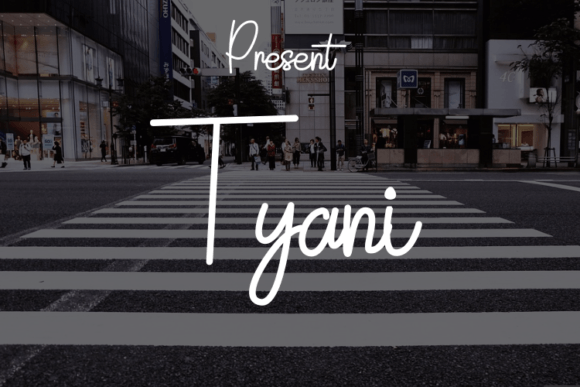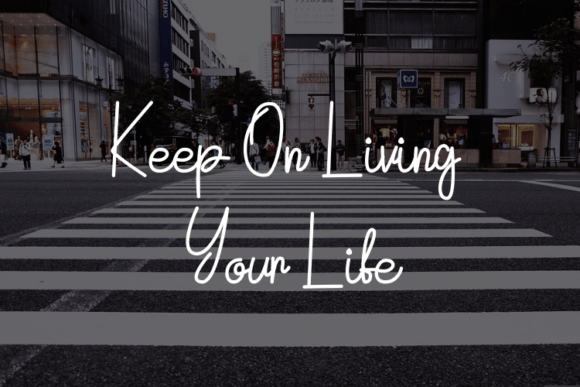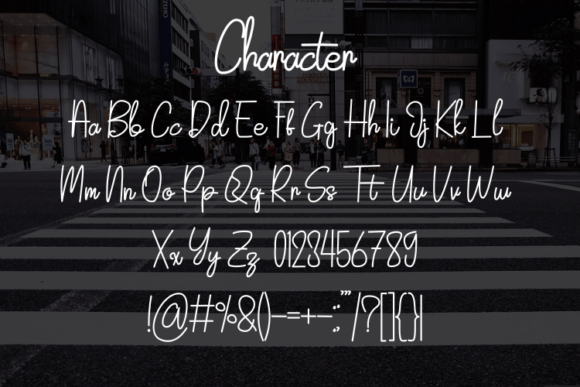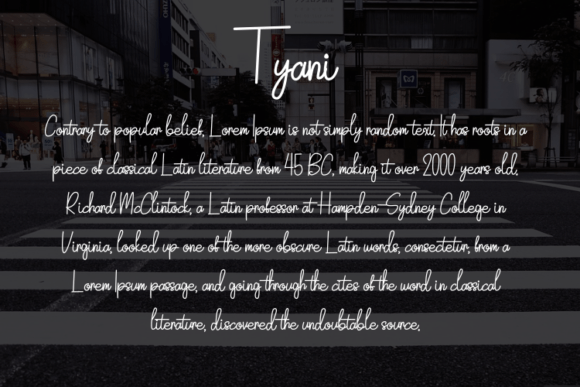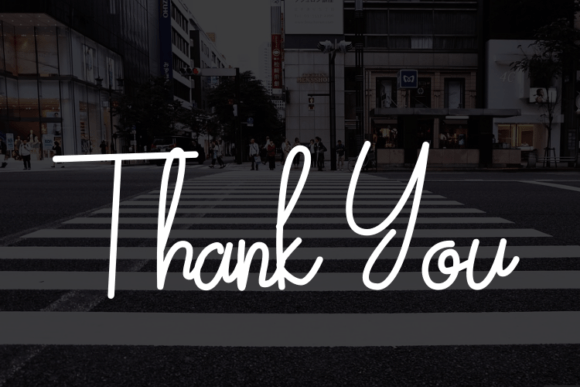
Tyani Font: Modern Script for Elegant Designs
“Tyani” is a sophisticated script font that combines simplicity with modern elegance. It’s perfect for various design applications, from luxury logos to fashion branding.
Key Features of Tyani Font
- Modern Elegance: Tyani blends contemporary style with refined aesthetics.
- Versatile Use: Suitable for many projects, including logo designs and magazine layouts.
- Luxurious Appeal: Adds a touch of exclusivity to your typography.
Tyani’s elegant style is ideal for creating sophisticated brand identities and logos that convey luxury and prestige.
Fashion and Lifestyle
Use Tyani for designing high-end fashion labels, magazine titles, and lifestyle branding that exudes modern sophistication.
Book and Movie Titles
The font’s distinctive look makes it perfect for creating captivating book covers and movie title designs.
Why Choose Tyani Font?
Tyani offers more than just beautiful letters. Here’s why it stands out:
- Enhances overall aesthetics with its modern script style
- Creates a sense of prestige and allure in designs
- Adapts well to various luxury and contemporary themes
By using Tyani, you open up new design possibilities. Its elegant style works well in many contexts, from greeting cards to website headers. The font’s ability to convey luxury can inspire creative ideas and help you approach projects from a fresh, sophisticated perspective.
Tyani in Modern Design Trends
Tyani aligns perfectly with contemporary design trends that favor elegant simplicity. Its script style adds a personal touch while maintaining a high-end feel, making it particularly effective for brands targeting luxury markets or those aiming for a refined, modern image.
If you’re looking for a font that combines modern elegance with versatility, Tyani is an excellent choice. It’s perfect for adding a touch of luxury to your work, especially for projects that need a sophisticated, contemporary feel.
Explore how Tyani can transform your designs. From branding projects to editorial designs, this font brings a refined and captivating quality to your creations.